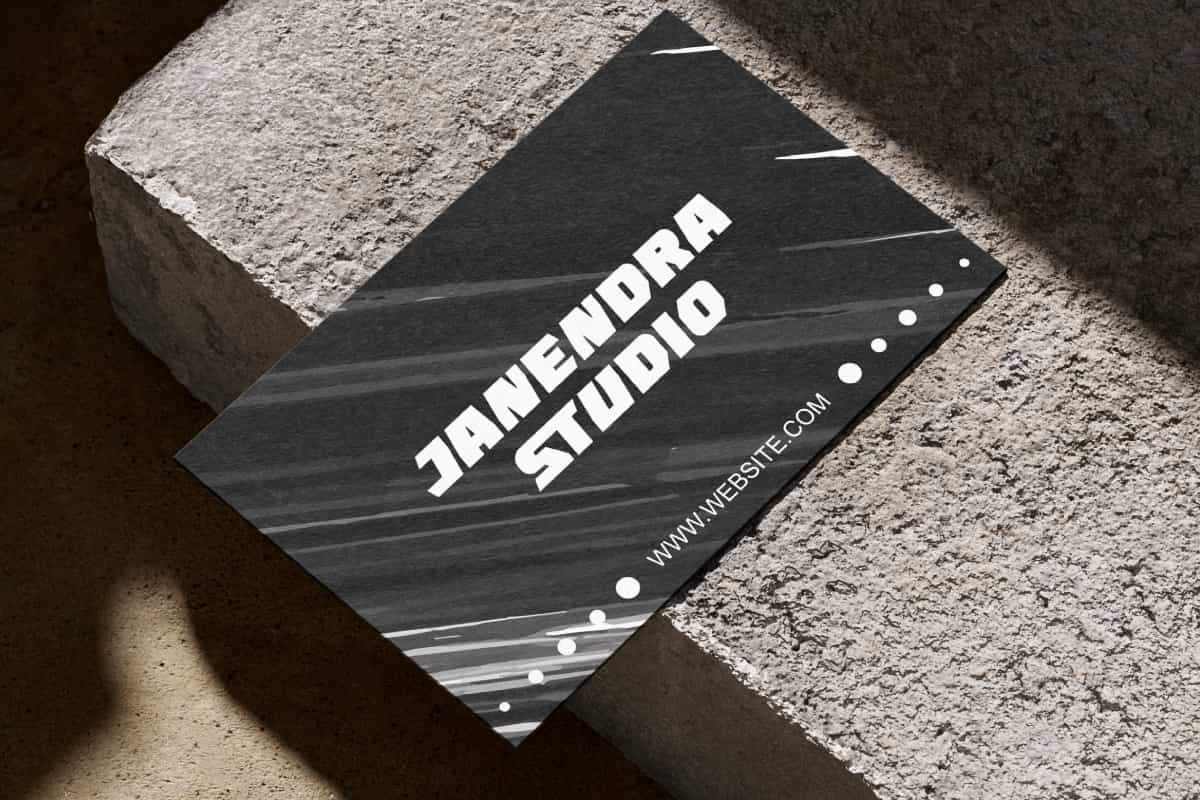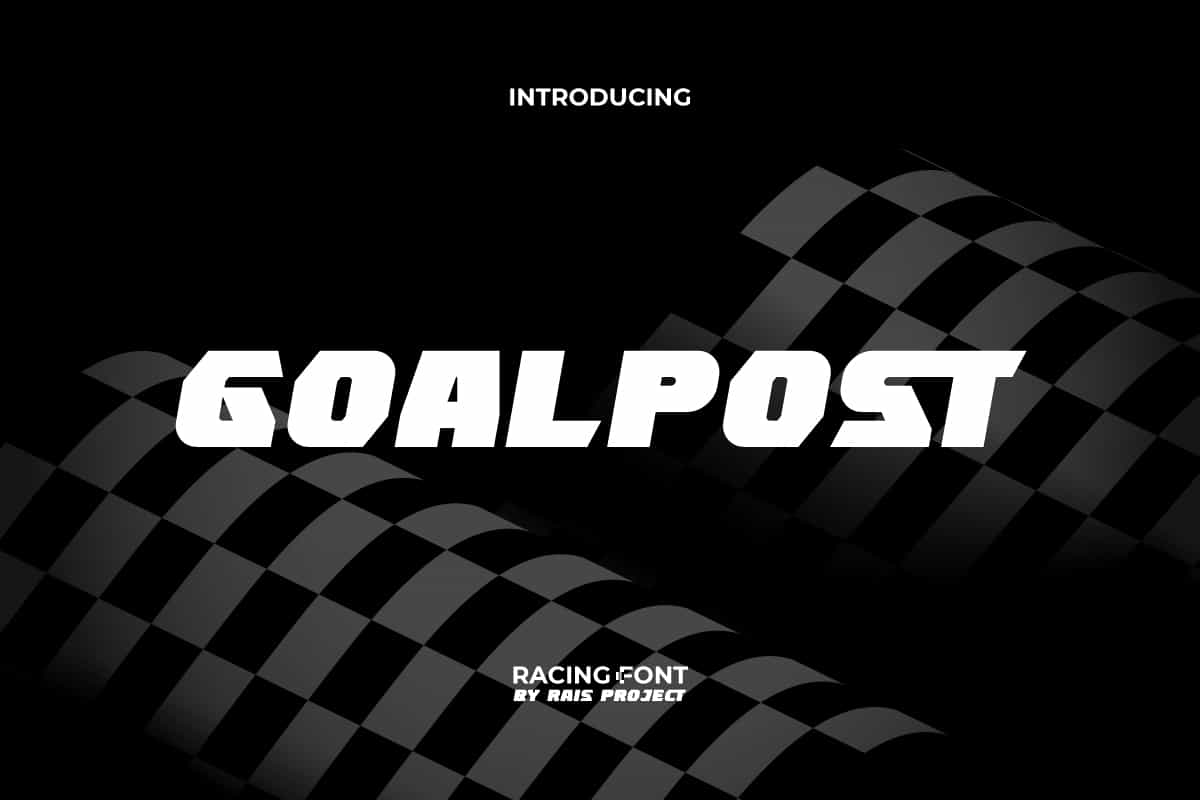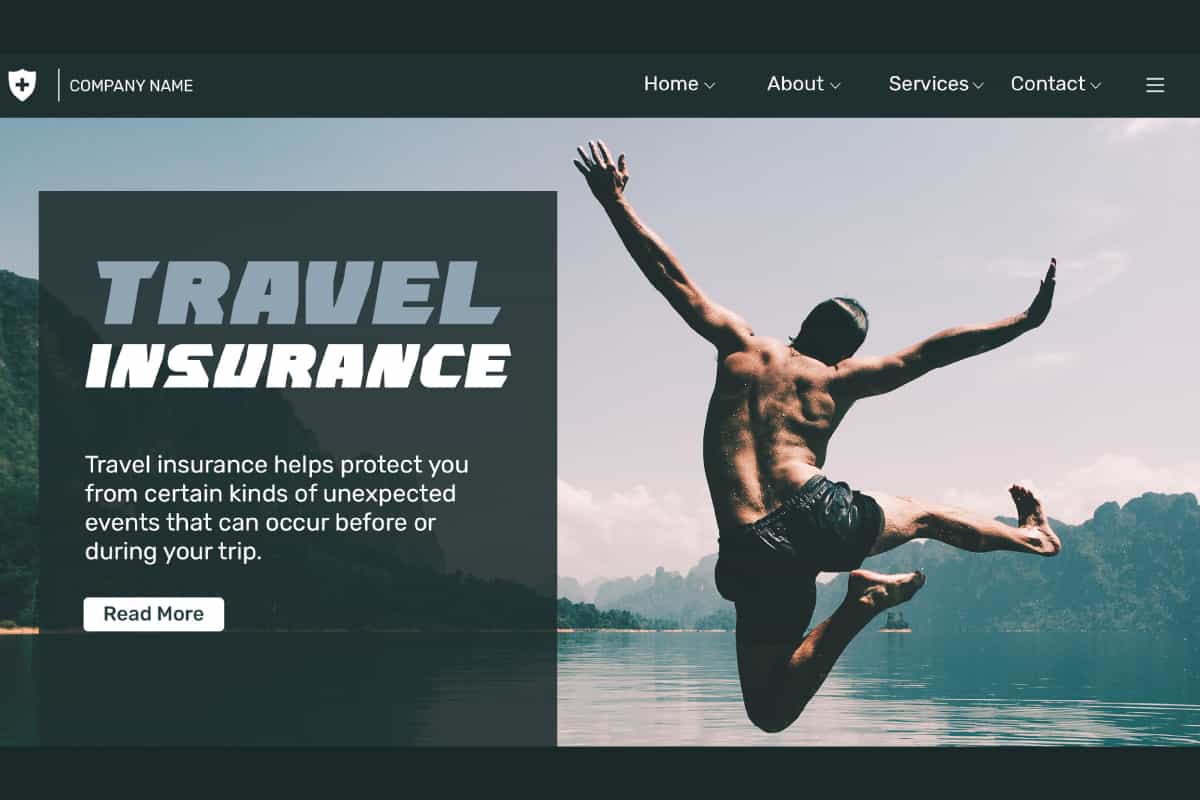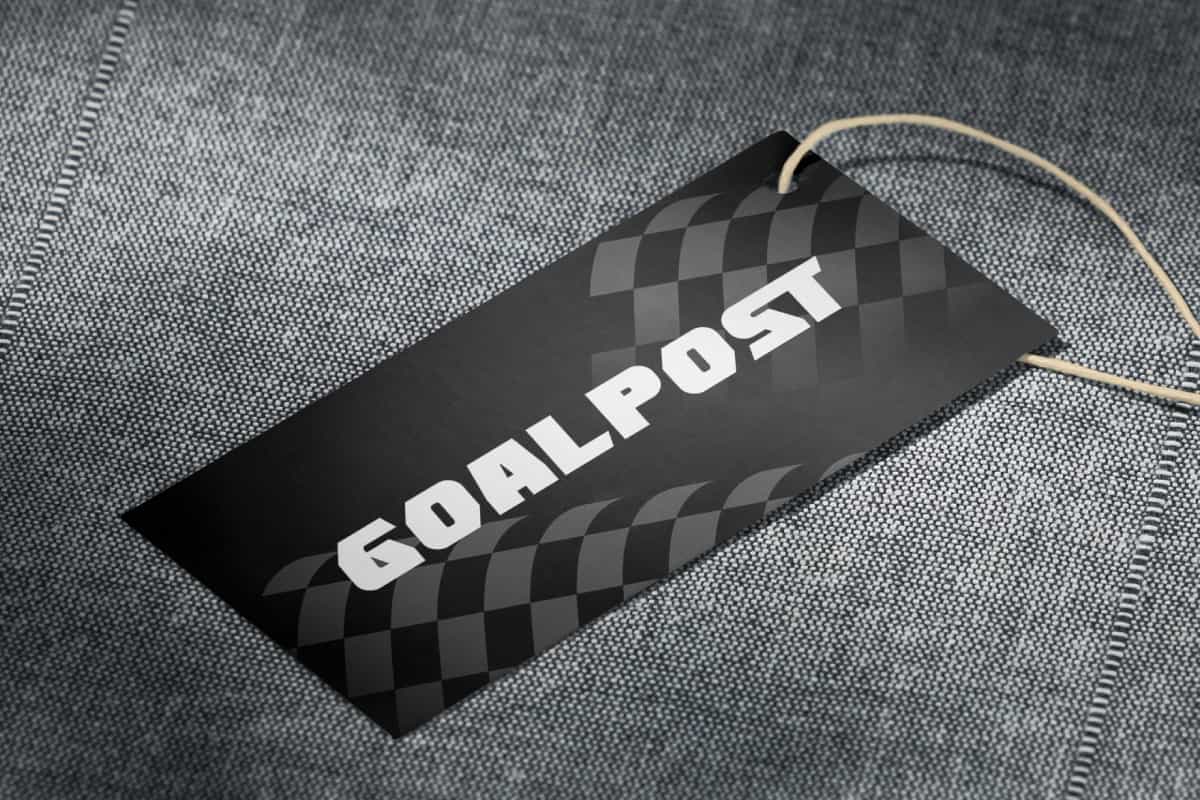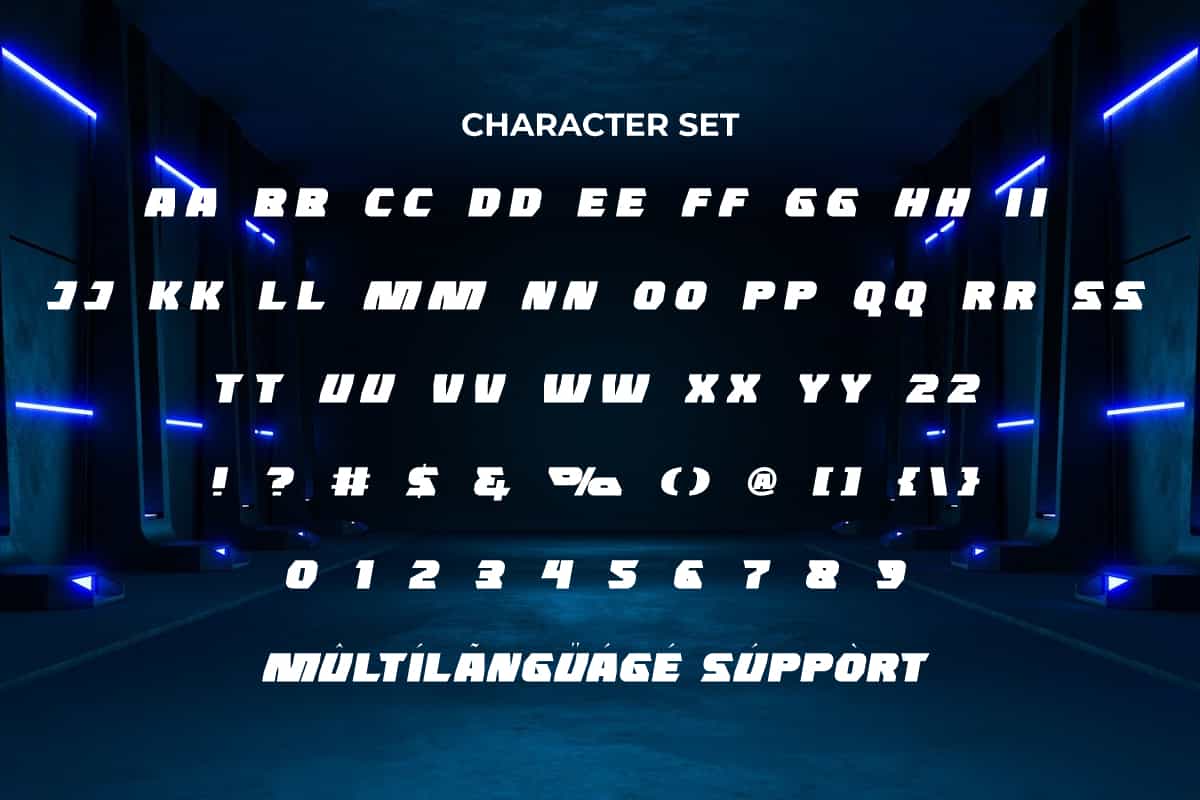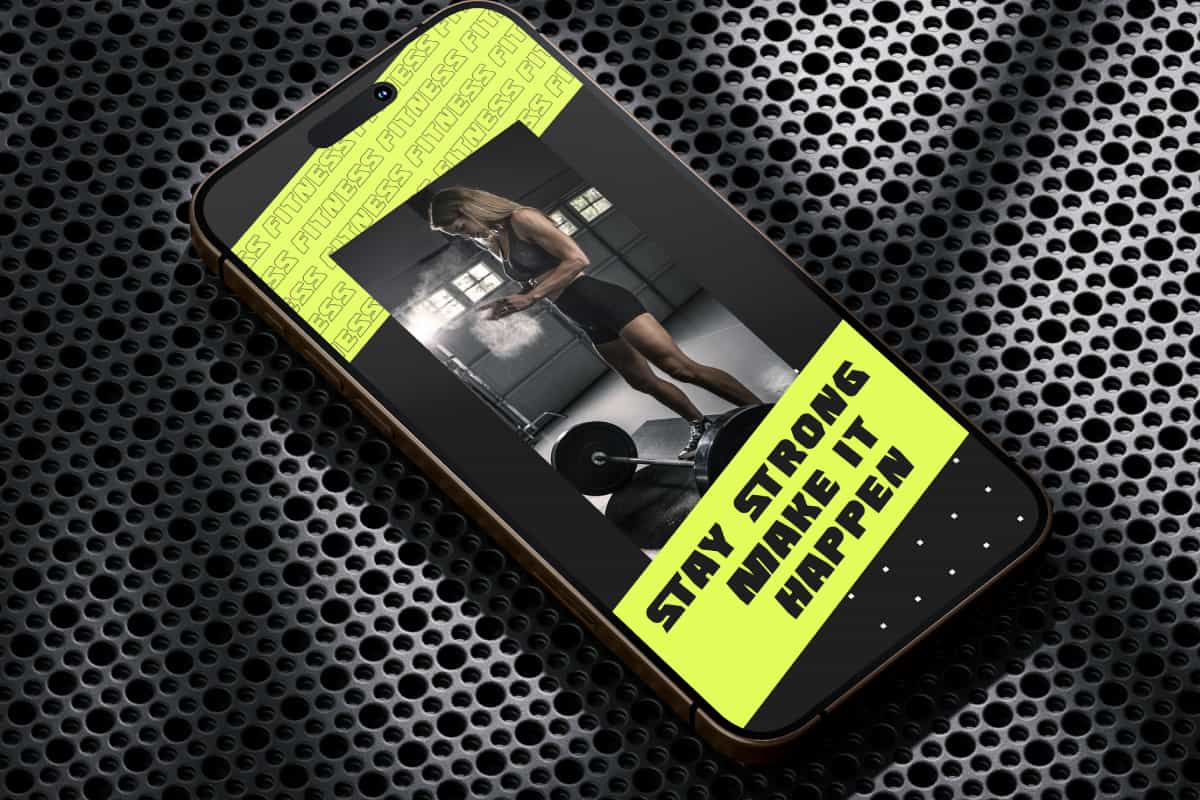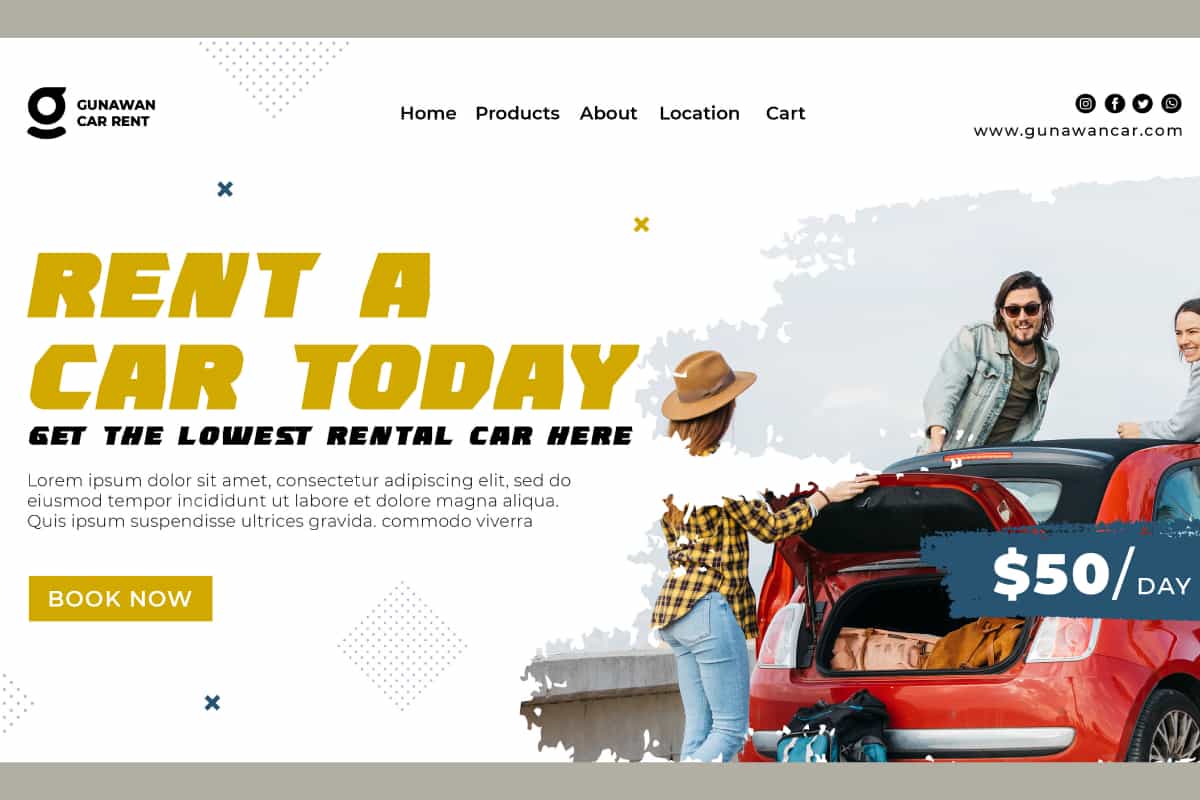
Goalpost Font
Goalpost Font is a playful but strong and sporty football, soccer and racing themed font. Make your design standout by adding this cool font!
Goalpost Font is a playful but strong and sporty football, soccer and racing themed font created by RaisProject. This font can convey an exclusive with modern impression because of its bold and sharp shape. It will be good for any designs, such as poster, signage, stationery, custom design, product packaging, quotes, brand image, advertisement, invitation, label, marketing material, website page, and more!
Goalpost Font includes a full set of ALL CAPS for Uppercase and Lowercase Letters, Numerals, and large range of Punctuation. This bold font will be suitable for various industries, such as sports, automotive, fashion, game, barber shop, cafe, event or festival, photography, printing, publishing, etc.